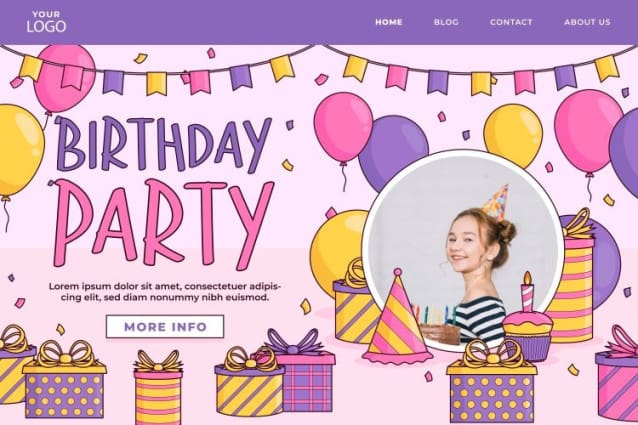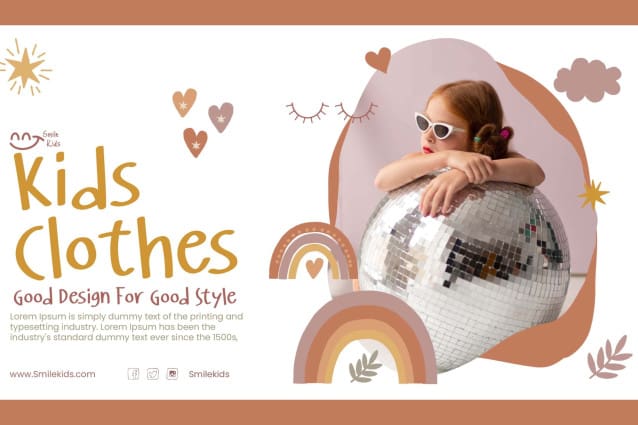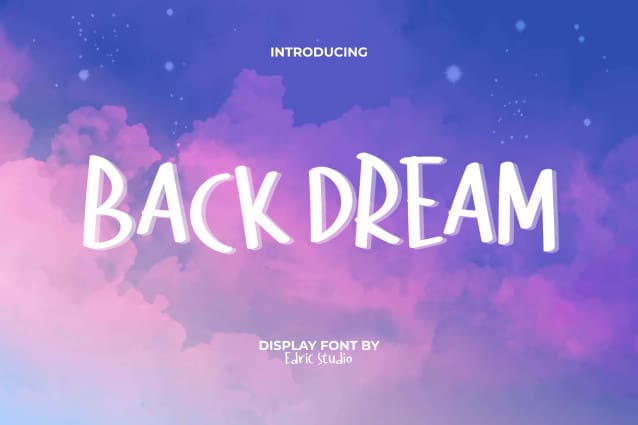
Back Dream Font
Back Dream Font is a beautiful fantasy display font with fun characteristics. It is a great choice for adding a touch of playful typographic style to your designs, such as blogs, brochure, catalogue, header, invitation card, logos, menu, packaging design, pamphlet, poster, product label, quotes, screen print, sticker, title, website, and more.
Back Dream Font comes with a full set of Uppercase and Lowercase letters, Number, Punctuation, and Symbol. This font comes with its own style and will not look boring. Providing original handwriting and guaranteed to add an interesting impression that suits your industry needs, such as cafes, content creators, crafts, graphic design, interior design, printing, publishing, web designers, writers, etc.